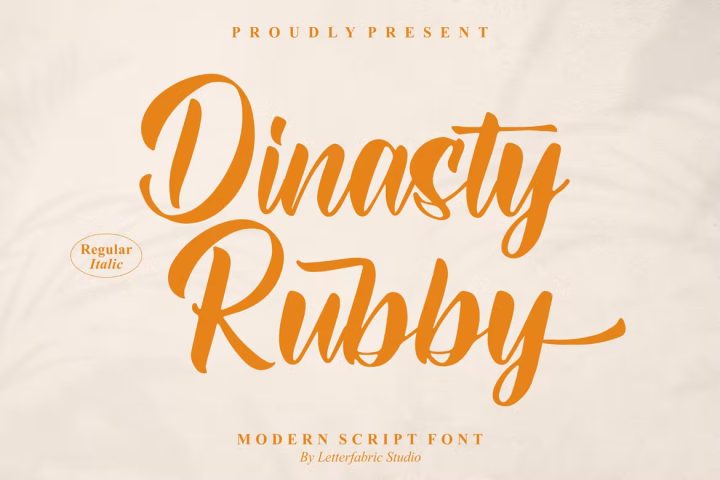
Dinasty Rubby Modern Script Font
Hi ladies & gentlemen, this is one of our fonts suitable to complement your digital and printed creative products. This font is perfect for posters, social media posts, branding, personal projects, etc.